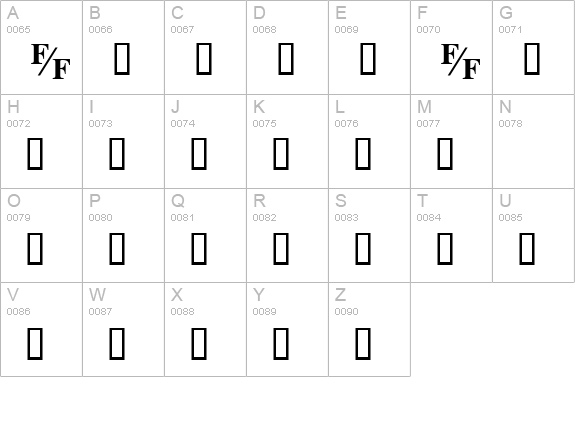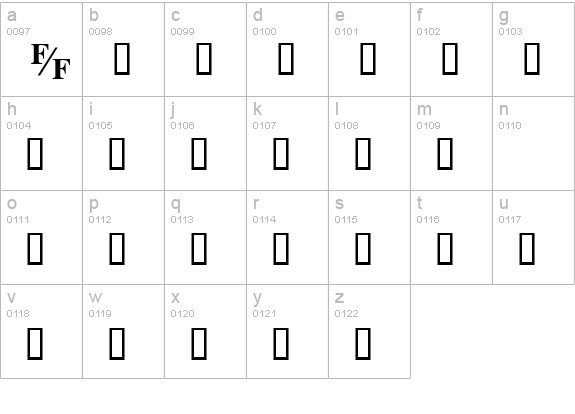
TmsFE Bold Font Details
TmsFE Bold is a strong, high-contrast variant in the TmsFE typeface family \xE2\x80\x94 well suited to headlines, attention-grabbing titles, and strong calls-to-action.
Introducing TmsFE Bold, a captivating and versatile font that exudes confidence and modernity. With its bold and impactful strokes, this typeface effortlessly grabs attention and makes a powerful statement. Whether you're designing a logo, creating eye-catching headlines, or crafting striking posters, TmsFE Bold is the perfect choice to elevate your project to the next level. This font features a unique blend of sharp edges and smooth curves, adding a touch of sophistication and elegance to any design. Its strong and commanding presence ensures that your message stands out from the crowd, leaving a lasting impression on your audience. One of the best things about TmsFE Bold is that it is available for free download at FontsMarket.com. This means that you can easily access and enjoy this remarkable font without breaking the bank. Embrace the freedom to enhance your creative projects with a font that effortlessly combines style, versatility, and reliability. With TmsFE Bold, you have the freedom to explore endless design possibilities. Whether you're designing for print or digital media, this font adapts seamlessly to various contexts, ensuring that your message remains clear and impactful in every setting. Its versatility makes it suitable for a wide range of applications, including branding, advertising, packaging, and more. Don't miss out on the opportunity to add TmsFE Bold to your font library. Visit FontsMarket.com today and experience the freedom of freely accessing this exceptional font. Elevate your design game and captivate your audience with TmsFE Bold - the font that empowers your creativity.